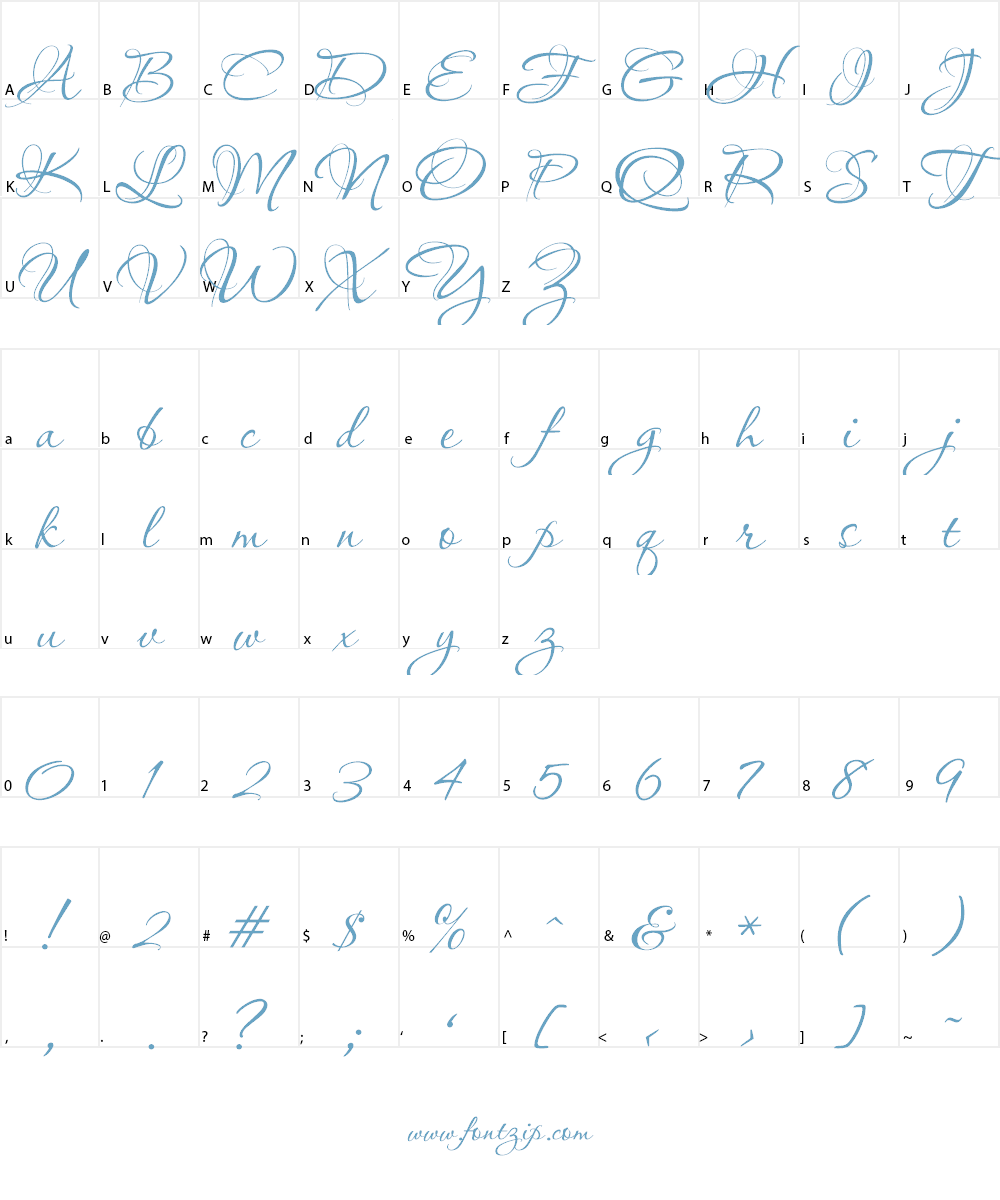
Introducing the new handwritten stylish fonts Bodega Script, perfect for creating authentic hand-lettered text with a dancing baseline, classic and elegant touch.